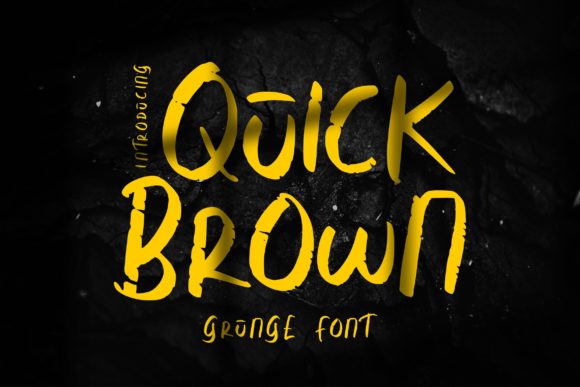
Quick Brown: A Bold Font for Impactful Design
When it comes to making a visual statement, the right font can be the difference between a design that blends in and one that stands out. Quick Brown is more than just another typefaceâit's a bold and assertive display font that brings an urban, brushed aesthetic to your projects. Whether you're crafting logos, social media graphics, or promotional materials, Quick Brown offers a unique blend of style and functionality that can elevate your creative output.
The Power of Visual Impact
In todayâs fast-paced digital world, attention spans are short, and first impressions matter. Quick Brown is designed to cut through the noise with its strong, confident presence. The fontâs brush-stroke texture adds a handcrafted feel, while its assertive structure ensures clarity and readability even at smaller sizes. This makes it ideal for applications where visual impact needs to be immediate and memorable.
Consider a scenario where youâre designing a poster for a music festival. The text needs to grab attention from a distance and convey energy. Quick Brownâs urban style and bold strokes make it a perfect fit. It doesnât just look goodâit communicates the vibe of the event instantly.
Who Benefits Most from Quick Brown?
Quick Brown is particularly well-suited for professionals in creative fields, such as graphic designers, marketers, and content creators. Its versatility allows it to work across multiple platforms, from print to digital, ensuring consistency in branding and messaging.
Entrepreneurs and small business owners will find value in Quick Brownâs ability to reinforce brand identity. A logo or tagline crafted with this font can become a recognizable symbol of your business, helping to build trust and familiarity with your audience.
Freelancers and educators who create visual content for online courses or presentations may also benefit. The fontâs legibility and eye-catching design can help maintain viewer engagement during long-form content, making complex ideas easier to digest.
Practical Applications of Quick Brown
One of the most compelling aspects of Quick Brown is its adaptability. It can be used in a variety of contexts, each offering unique benefits:
- Brand Identity: Quick Brownâs boldness makes it ideal for logos, headers, and other brand elements that need to stand out.
- Social Media Graphics: Its urban style aligns well with modern aesthetics, making it a great choice for Instagram, Twitter, and Facebook posts.
- Event Promotions: Whether itâs a concert, art show, or product launch, Quick Brown can help create a visually striking promotional package.
- Print Materials: From flyers to brochures, the fontâs texture adds a tactile quality that can enhance the overall appeal of printed designs.
By choosing Quick Brown, youâre not just selecting a fontâyouâre investing in a tool that can help you communicate more effectively and creatively.
Designing with Purpose
While Quick Brown is visually striking, itâs important to use it intentionally. The fontâs assertive nature means it works best in situations where confidence and clarity are key. Avoid using it for body text or long paragraphs, as its bold style can be overwhelming in dense content.
Instead, focus on using Quick Brown for headlines, call-to-action buttons, and other elements that require emphasis. Pairing it with a complementary sans-serif font for body text can create a balanced and professional look.
For example, a marketing campaign for a new product might use Quick Brown for the headline to draw attention, while a clean, modern sans-serif font is used for the supporting details. This combination ensures both visual appeal and readability.
Limitations and Considerations
No font is perfect, and Quick Brown is no exception. While its bold style is a strength, it may not be suitable for all design contexts. For instance, in formal or academic settings, a more traditional font might be more appropriate.
Additionally, Quick Brownâs brushed texture can sometimes reduce legibility in low-resolution environments. If youâre designing for web or mobile, ensure that the font renders clearly across different devices and screen sizes.
To maximize its effectiveness, consider testing Quick Brown in various formats and contexts before finalizing your design. This will help you determine whether it aligns with your goals and audience expectations.
Choosing the Right Font for Your Needs
Quick Brown is a powerful tool, but itâs not the only option available. When selecting a font, itâs important to consider your specific needs and the message you want to convey. For example, if youâre creating a website for a professional service, a more structured font might be better suited to convey reliability and expertise.
However, if your goal is to create a dynamic and engaging designâwhether for a startup, a creative project, or a personal brandâQuick Brown can be a valuable asset. Its unique style and strong visual impact make it a standout choice for those looking to make a statement.
Ultimately, the key to successful design lies in understanding your audience and choosing the right tools to communicate your message effectively. Quick Brown offers a compelling combination of style, function, and impact that can help you achieve your creative goals.